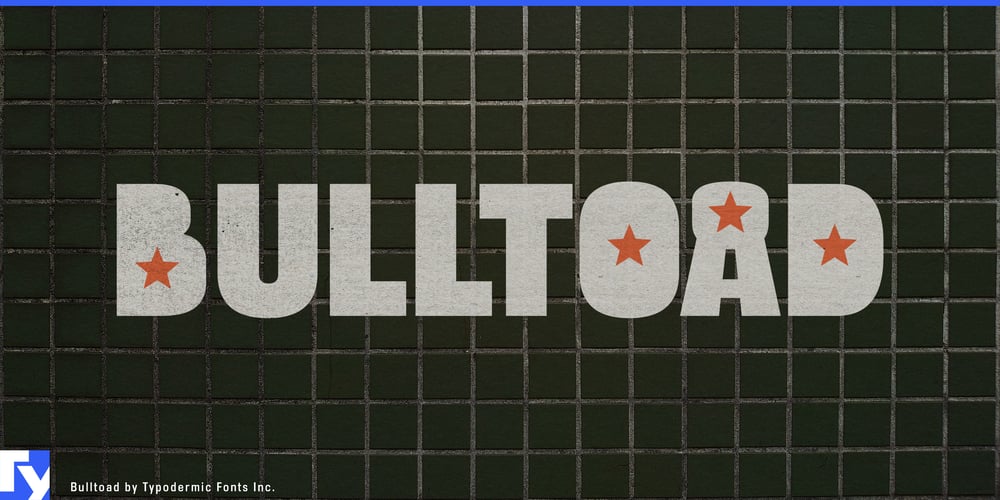
Bulltoad
Bulltoad font
Bulltoad Font Family was designed by Ray Larabie and published by Typodermic. Bulltoad contains 33 styles and family package options. Dive into the whimsical world of Bulltoad, a typographic treasure trove that transforms ordinary letters into extraordinary vehicles of expression. This eclectic font family doesn’t just offer characters—it presents a vibrant alphabet of ideas, each letter housing a miniature work of art within its counter.Imagine a typeface where every ‘O’ tells a different story: one moment it’s a ship’s wheel, guiding your text through typographic seas; the next, it’s a delicate butterfly, adding a touch of grace to your words. Bulltoad’s 32 variations create a playground for designers, allowing them to infuse their creations with subtle symbolism or bold statements.From the patriotic (party symbols for both sides of the American political aisle) to the spiritual (crosses and Stars of David nestled within letters), and from the whimsical (smiley faces peeking out) to the natural (leaves and celestial bodies adorning your text), Bulltoad offers a rich tapestry of visual metaphors. It’s a typeface that speaks volumes beyond the words it forms, with icons ranging from classic symbols of love and peace to more provocative imagery like pistols and bombs.This font family doesn’t just cross borders—it transcends them, supporting a vast array of Latin-based European writing systems. Whether you’re crafting a message in the rolling hills of Ireland or the sun-drenched coasts of Croatia, Bulltoad ensures your words carry not just linguistic meaning, but visual impact as well.Bulltoad invites you to play with perception, to create layers of meaning within your designs. It’s more than a font; it’s a creative partner that challenges you to think beyond the letter and see the stories hidden within the shapes. From lighthearted projects that call for a touch of whimsy to more serious endeavors seeking subtle depth, Bulltoad provides the tools to elevate your typography from mere text to conversation pieces.In a world where every detail counts, Bulltoad stands as a testament to the power of the unexpected. It’s for the designer who understands that sometimes, the most profound statements are made in the spaces between the letters. With Bulltoad, every character is an opportunity, every word a gallery, and every sentence a journey through a landscape of symbols that speak louder than words alone ever could.